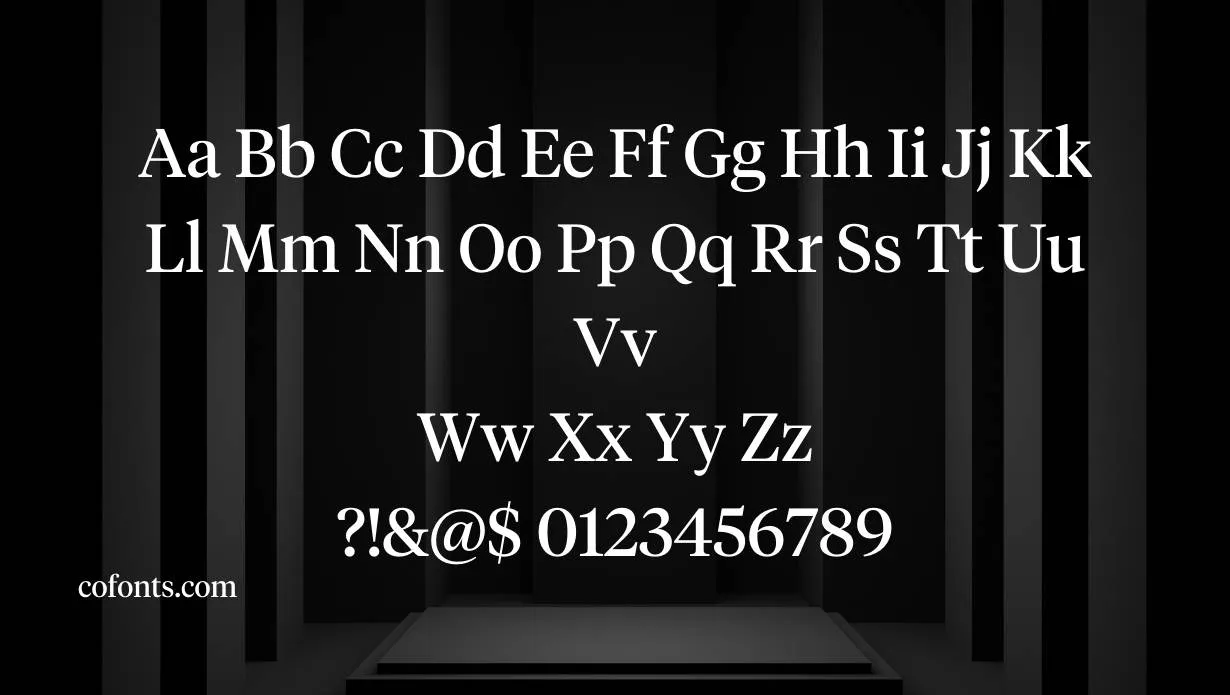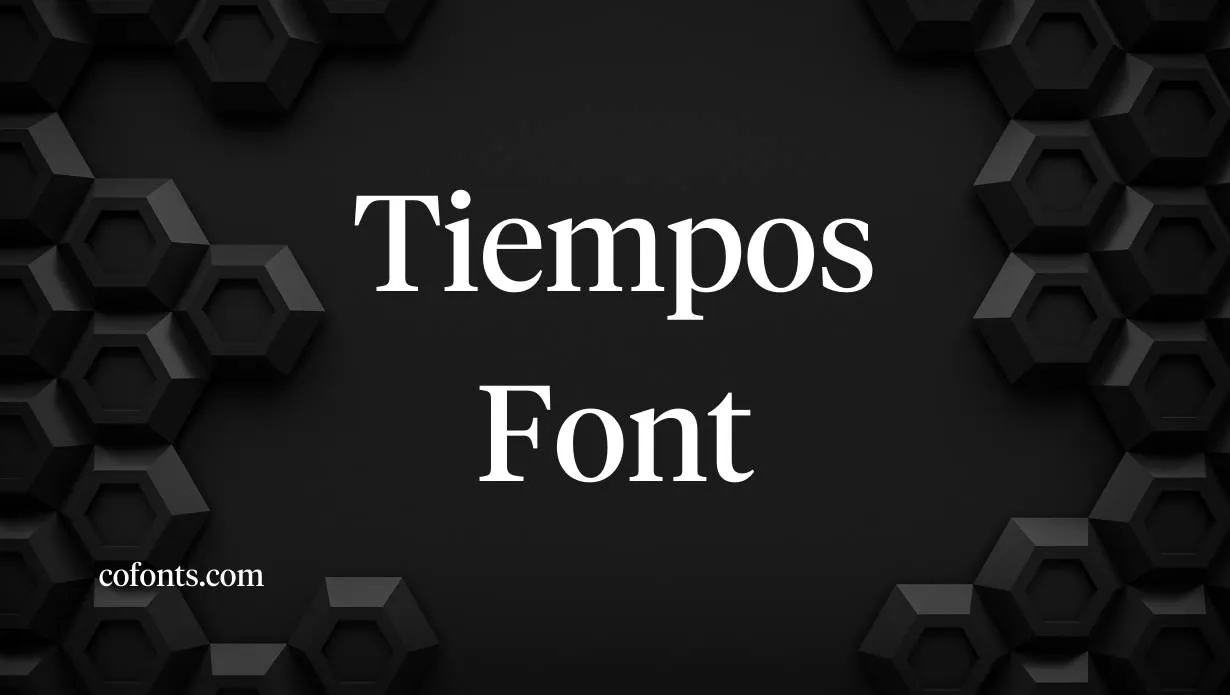
About Tiempos Font
Tiempos is a versatile and meticulously crafted serif typeface that blends classic proportions with modern clarity. Designed with extensive research into historical models, it excels in long-form text settings such as books, magazines, and high-quality publications. The family offers a range of weights and accompanying italics, all characterized by soft curves, elegant details, and a steady rhythm that ensures comfortable reading. Its robust construction and subtle warmth make it a favorite for prestigious brands and editorial designs that require both authority and approachability.